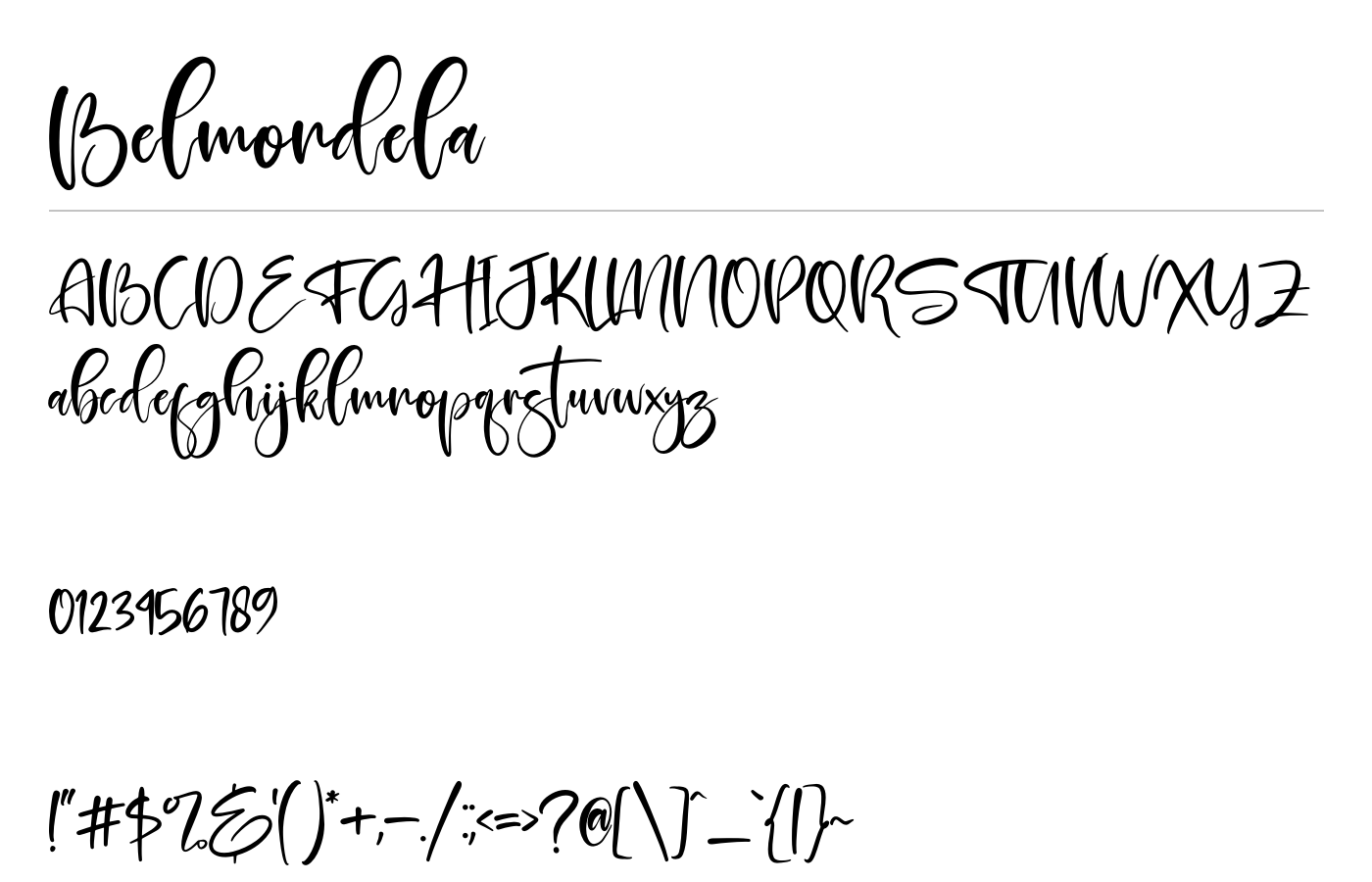
Belmondela is a charming handwritten script font with a lively, modern feel created by its fluid, irregular strokes and varying thickness. Its playful yet elegant style makes it perfect for branding, invitations, and creative projects that need a personal, artistic touch. The font’s loose, flowing letterforms convey warmth and approachability, ideal for designs seeking a fresh and friendly vibe.
Belmondela Font
About Belmondela Font